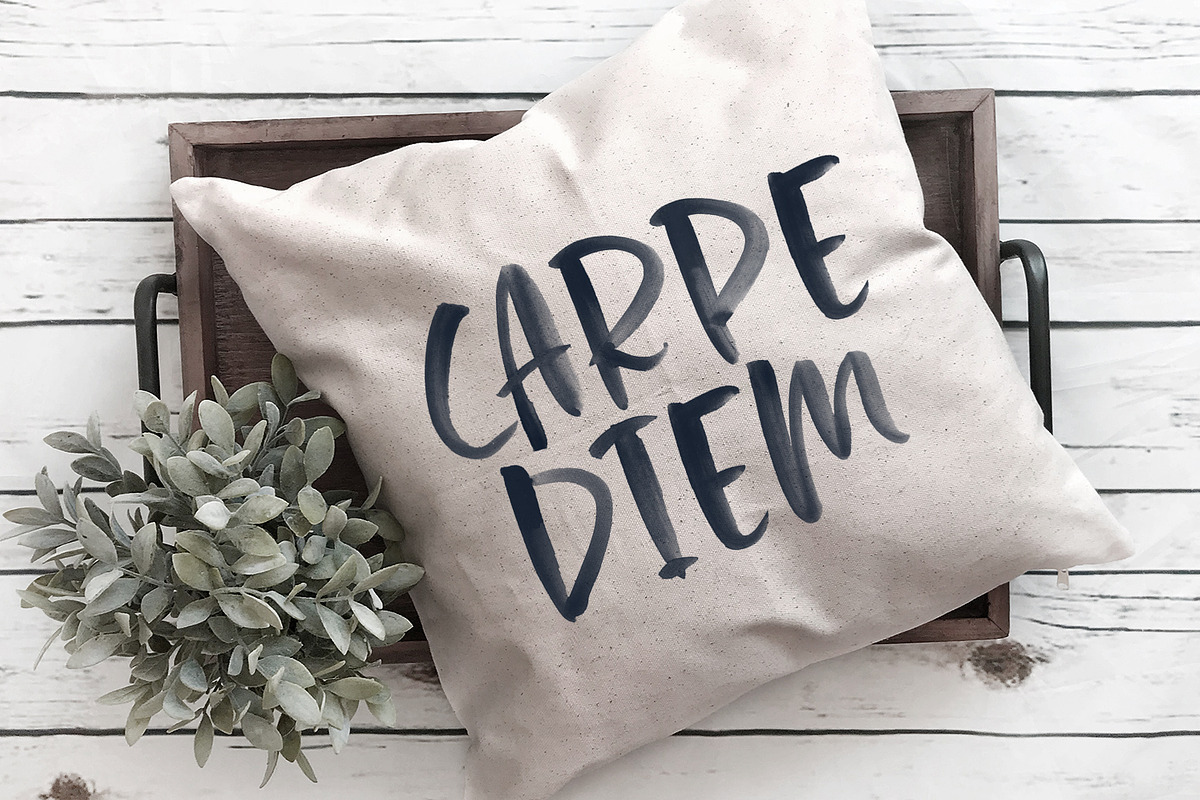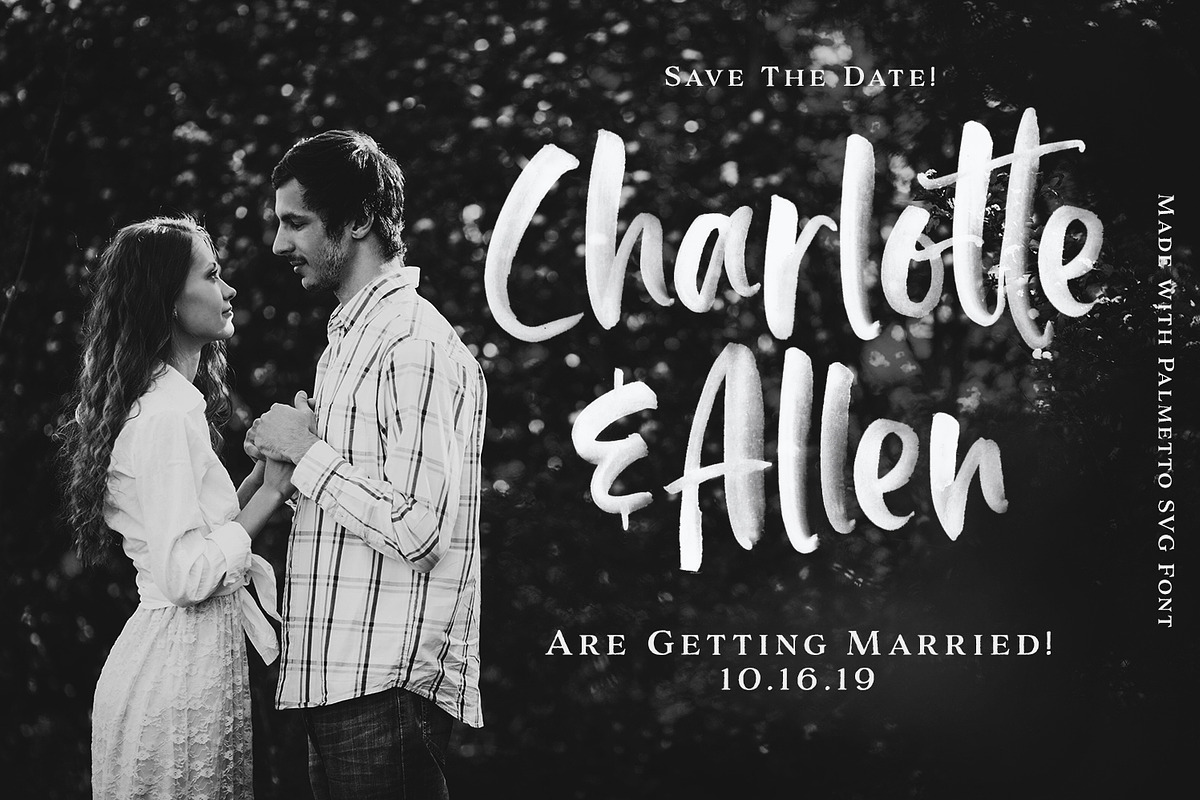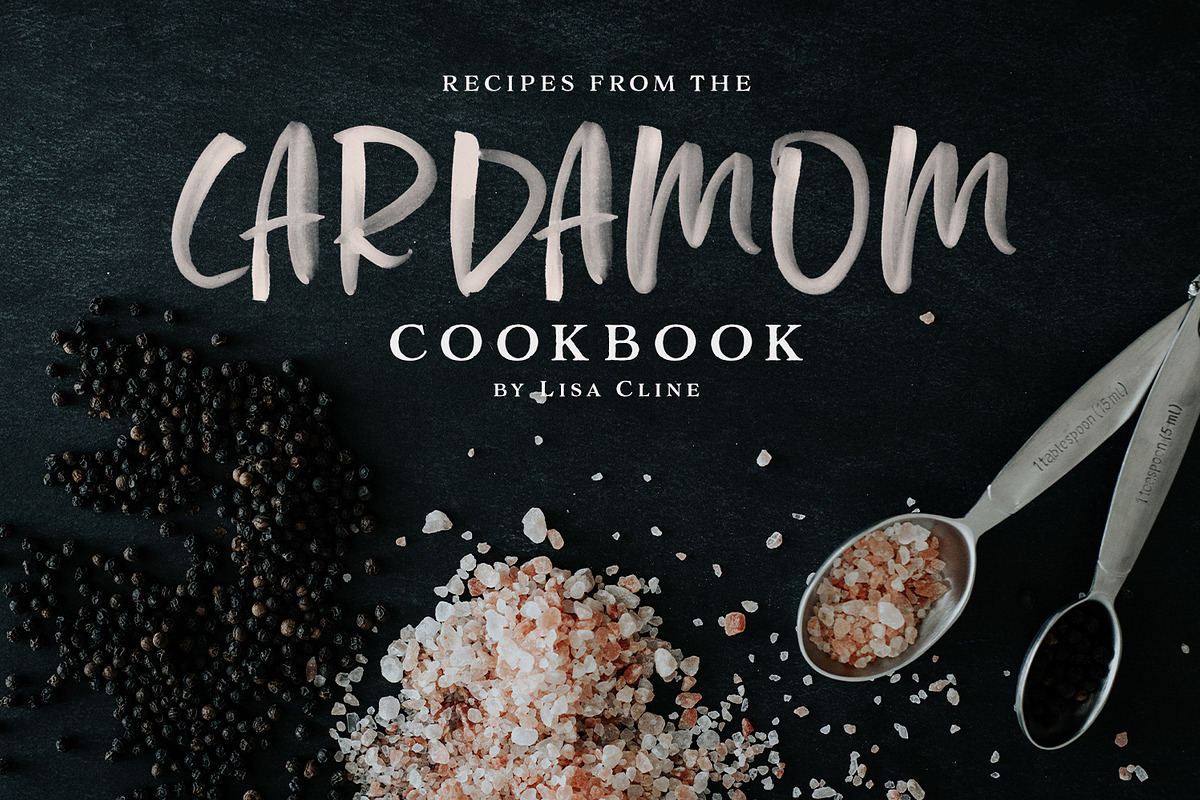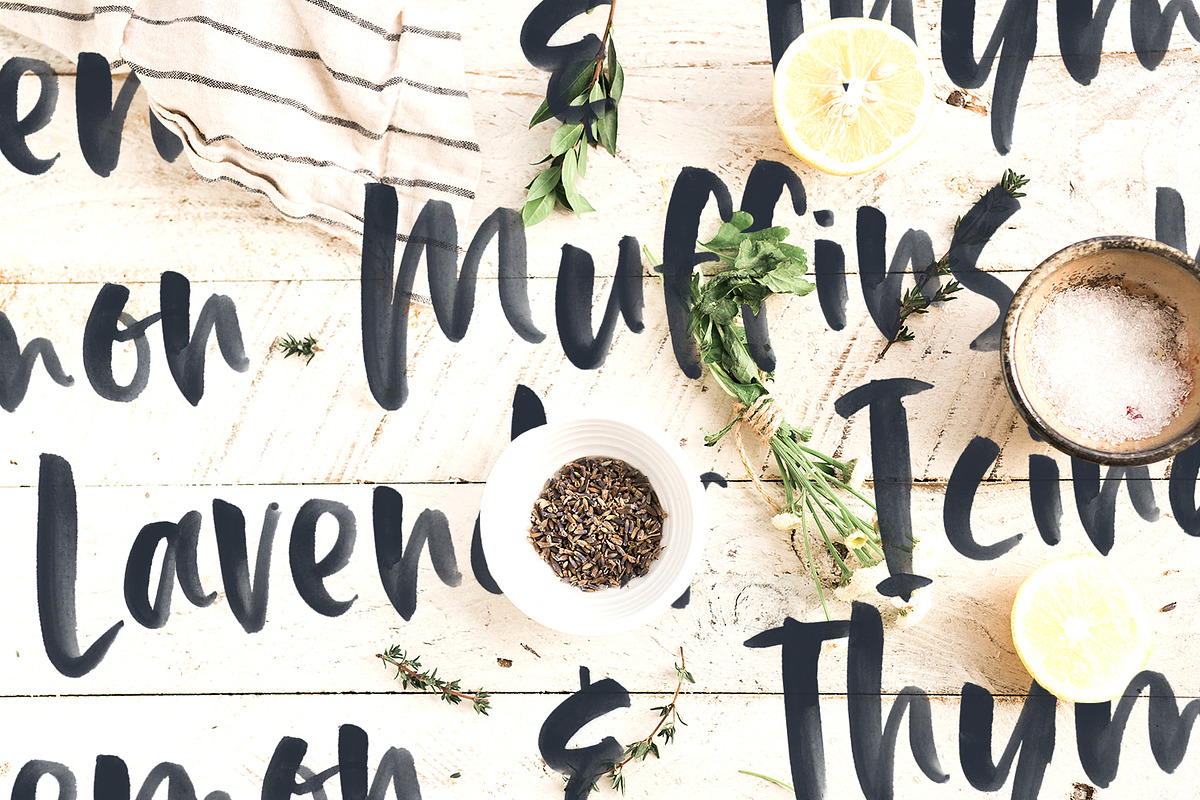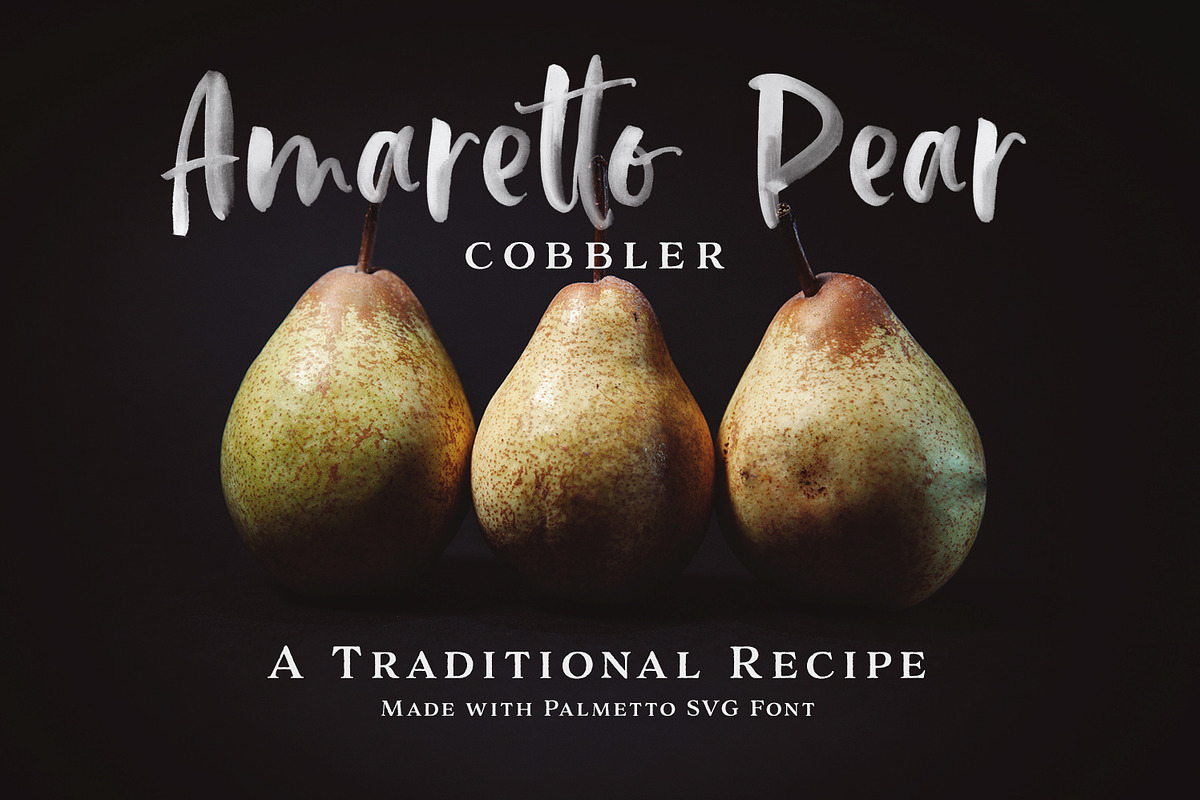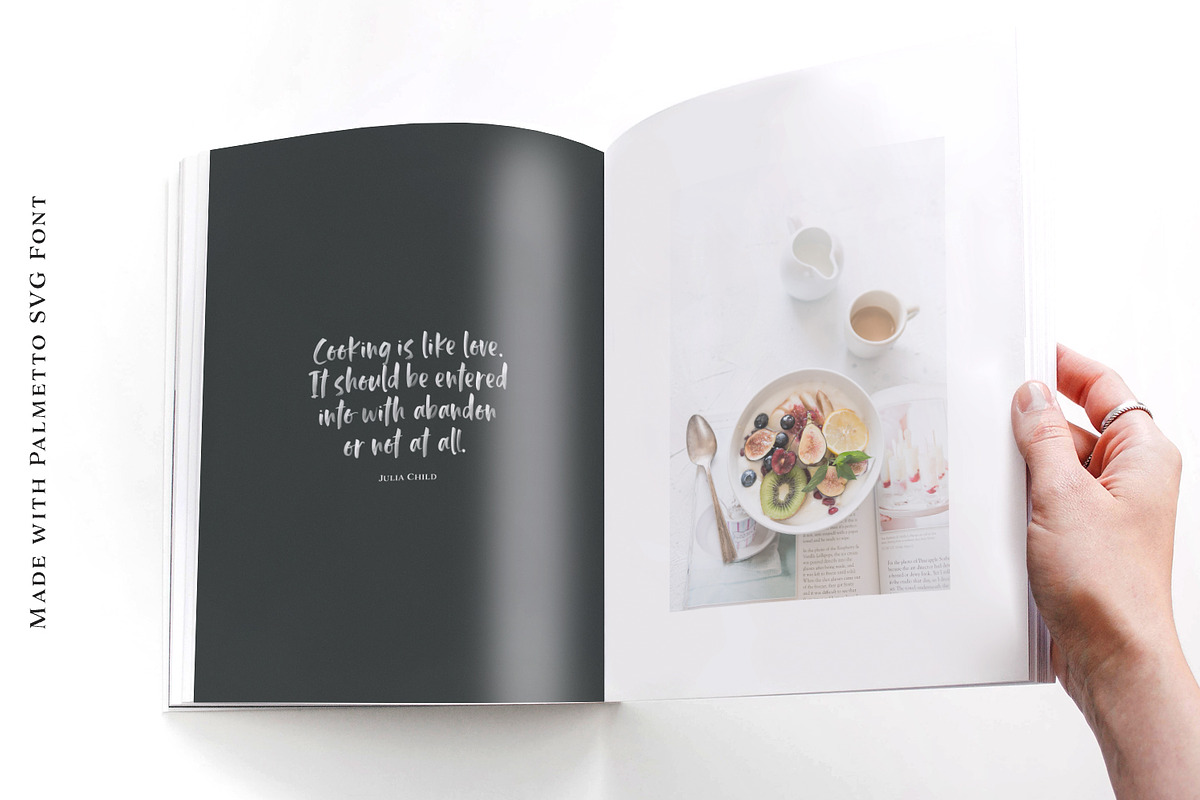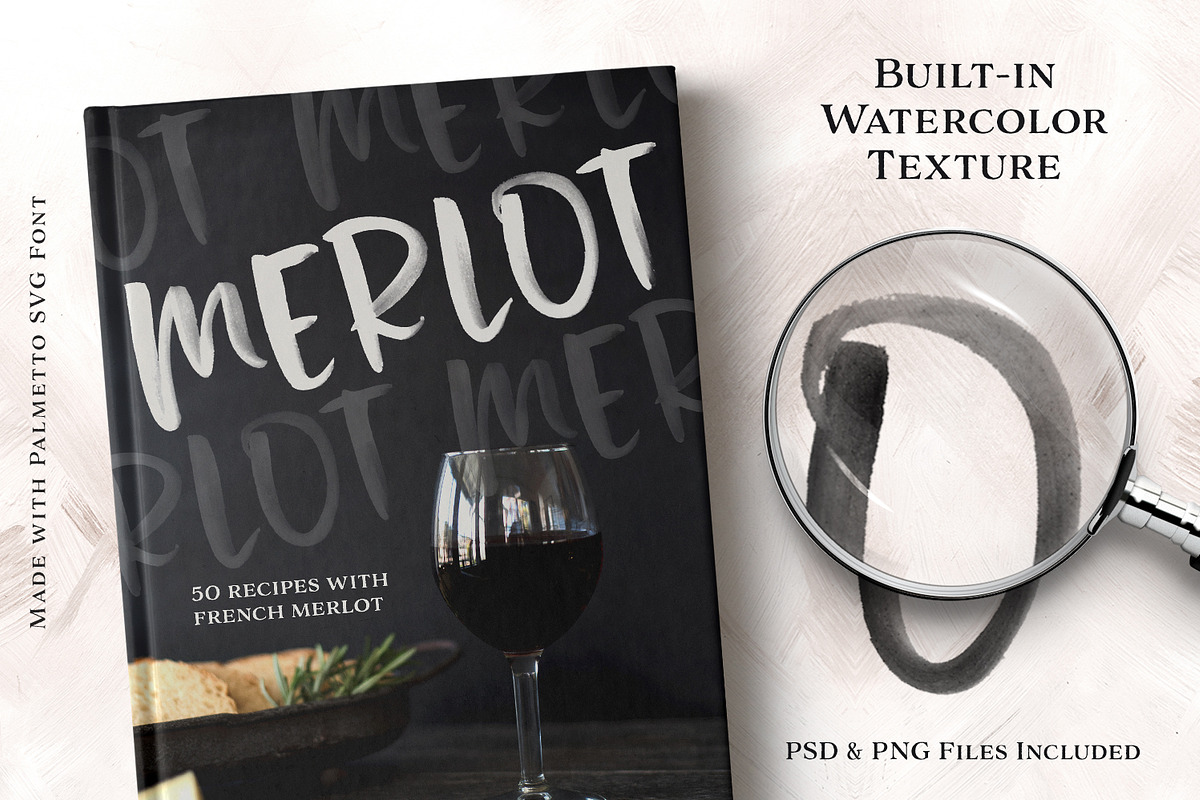
Palmetto SVG Font
Introducing Palmetto SVG typeface! Transparent & Textured fonts are now a reality! And they are awesome! With built-in texture, there’s no need for Photoshop overlays or brushes - you just type and go! And if you’re working with a Legacy version of Photoshop, have no fear! I've included all the glyphs in a Layered PSD, as well as PNG files too! :)
Palmetto SVG Typeface (OTF) - a delicate, hand-painted watercolor font. Use lowercase and uppercase characters together or separately, depending on the look and feel of your project.
- Use lowercase and uppercase characters together or separately, depending on the look and feel of your project.
Palmetto SVG Font by Callie Rian & Co. fits naturally into Branding, posters, packaging, typography.